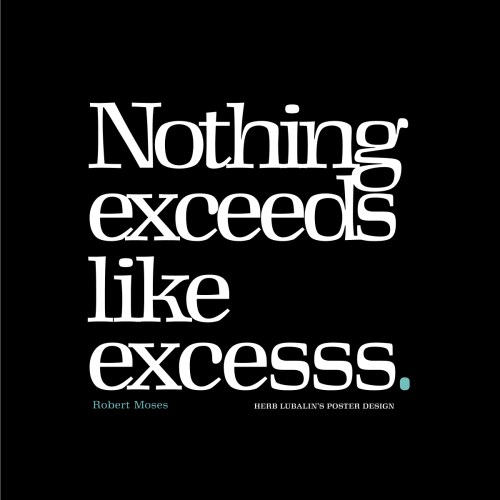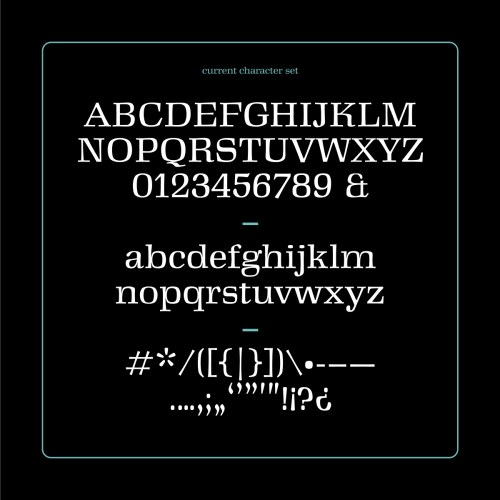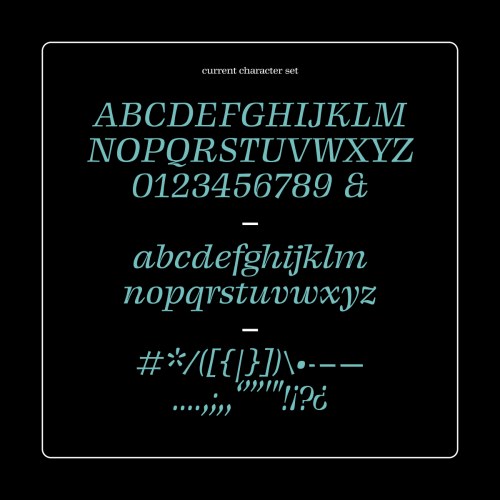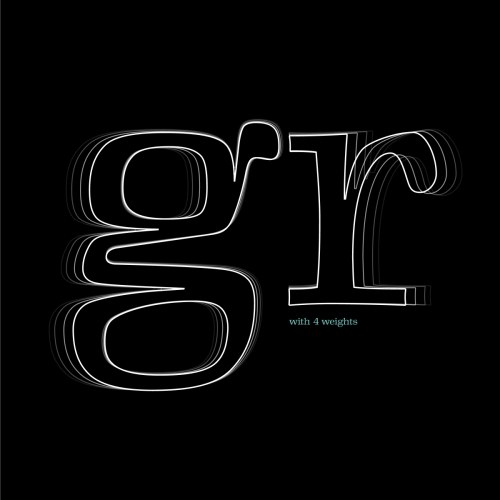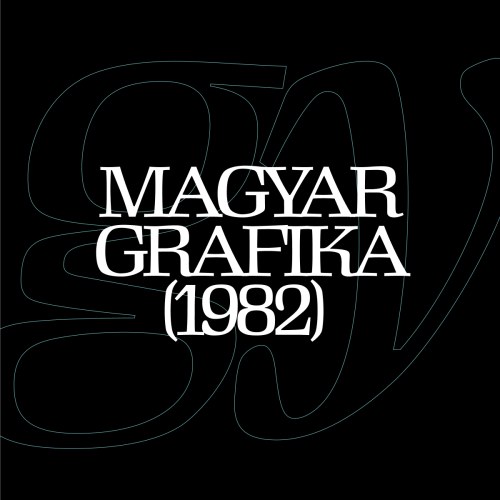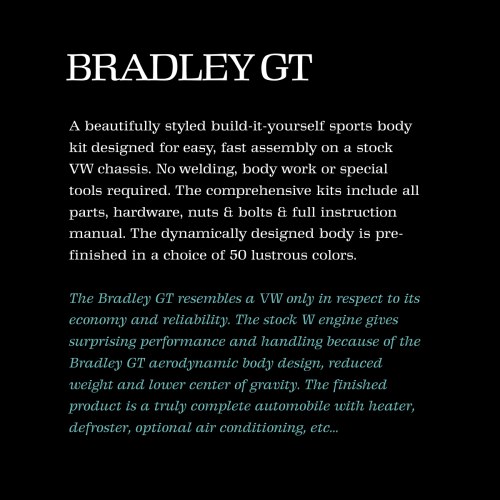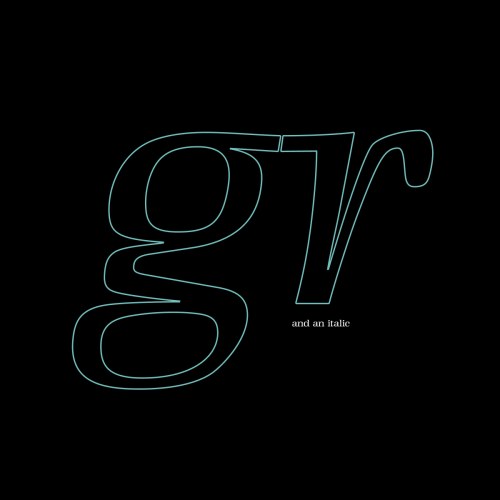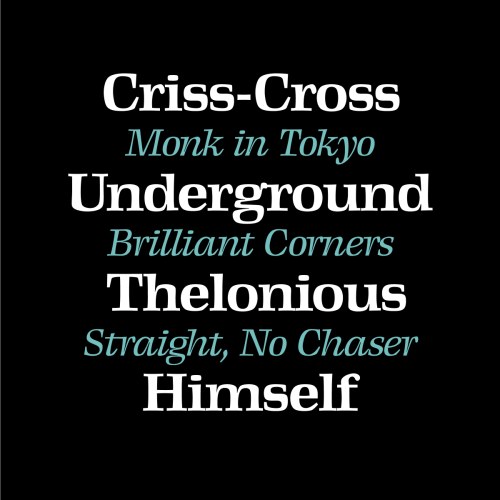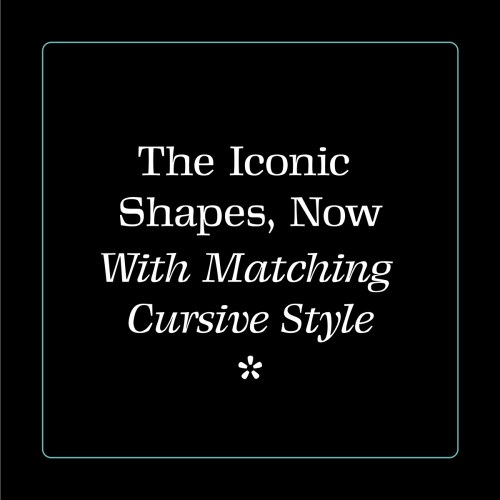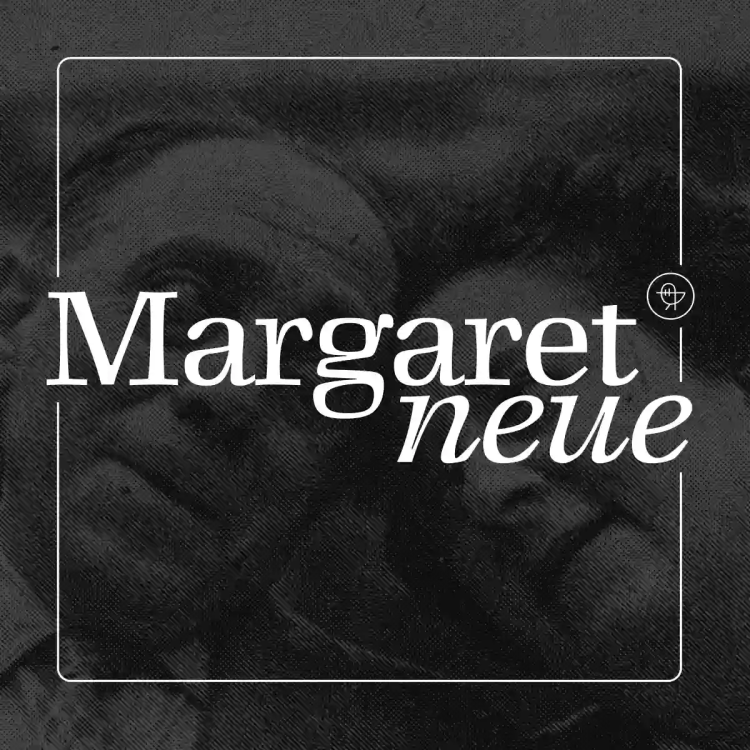
Margaret Neue Font
Margaret Neue Font is based on the Hungarian design of the sixties, Margaret by Zoltán Nagy. “Margaret” was one of the winners of the 1966 International Typeface Design Competition that was organised by the Visual Graphics Corporation, and the winners were chosen by such distinguished designers as Paul Rand and Herb Lubalin.
The idea of an original typeface appealed to me, and it was the shapes of these letters that made me start my journey with type design. Recognizing the potential to build upon Nagy’s work, I plan to expand the original design in several meaningful ways:
That is why Nagy had started working on a cursive version that was never fully designed. With this in mind I’d like to achieve this adding an elegant and fluid counterpoint to the current typeface.
To add more flexibility, a thin version will be developed, which is optimised for a wider range of purposes, including texts as well as headers.Small Capitals and Oldstyle Figures: Small capitals and old style figures will complement the typographic selection that designers can select from so that they can create more complex layouts.
This way of varying an optical size will keep the typeface legible as well as visually harmonious even when used in a different point size and mimic the effects of phototypesetting.
I believe it is my mission to stay as close to Zoltán Nagy’s concept as possible but design this for today’s practical usage. I believe by extending the typeface, designers will get the complete set of tools that had the influence of the 1960s Hungarian design while containing all the modern typography elements. It is not a mere restoration project as the end aim of the project is to update and push the ‘Margaret’ into a new generation, catering to today’s creative demands.
From this endeavour, I hope to are a part of filling the gap between the past and the contemporary in typography. This new enlarged typeface will be perfect for dressing editorial, branding projects, advertising, and even information technology applications. It is a homage to the design that first sparked my passion and the next move towards reintroducing this classic.